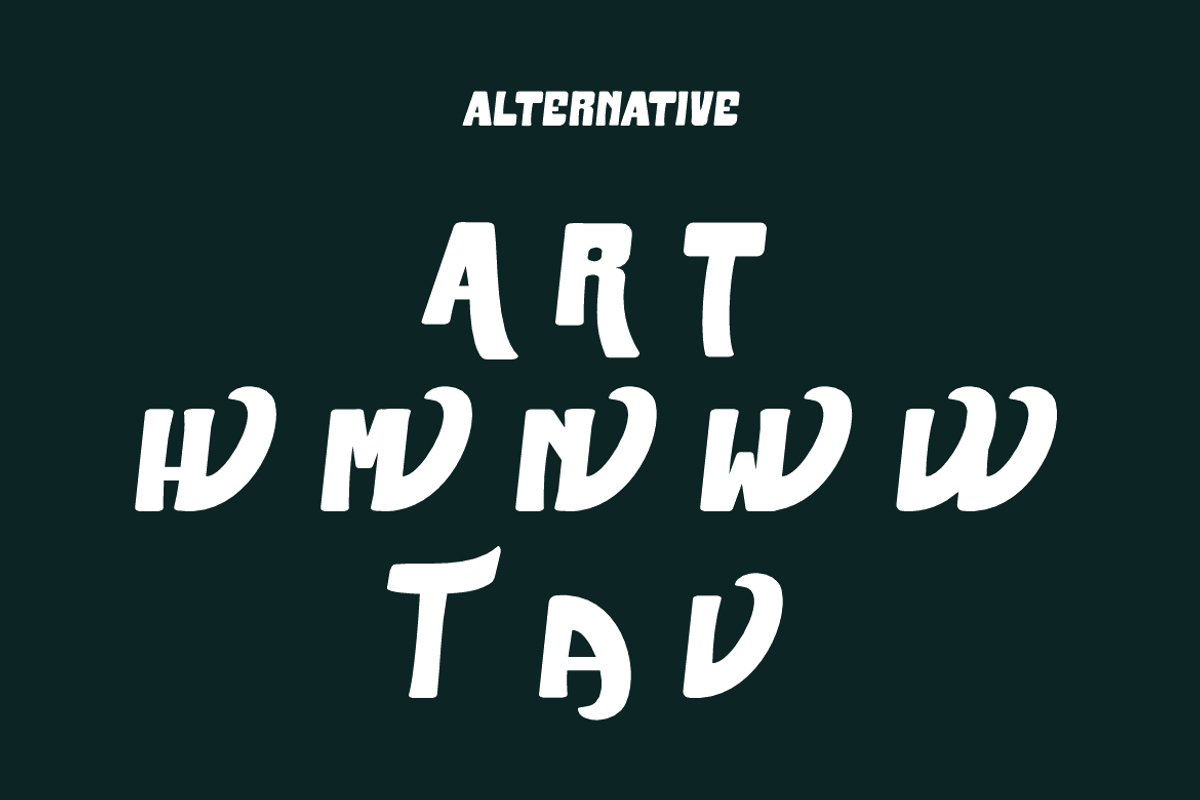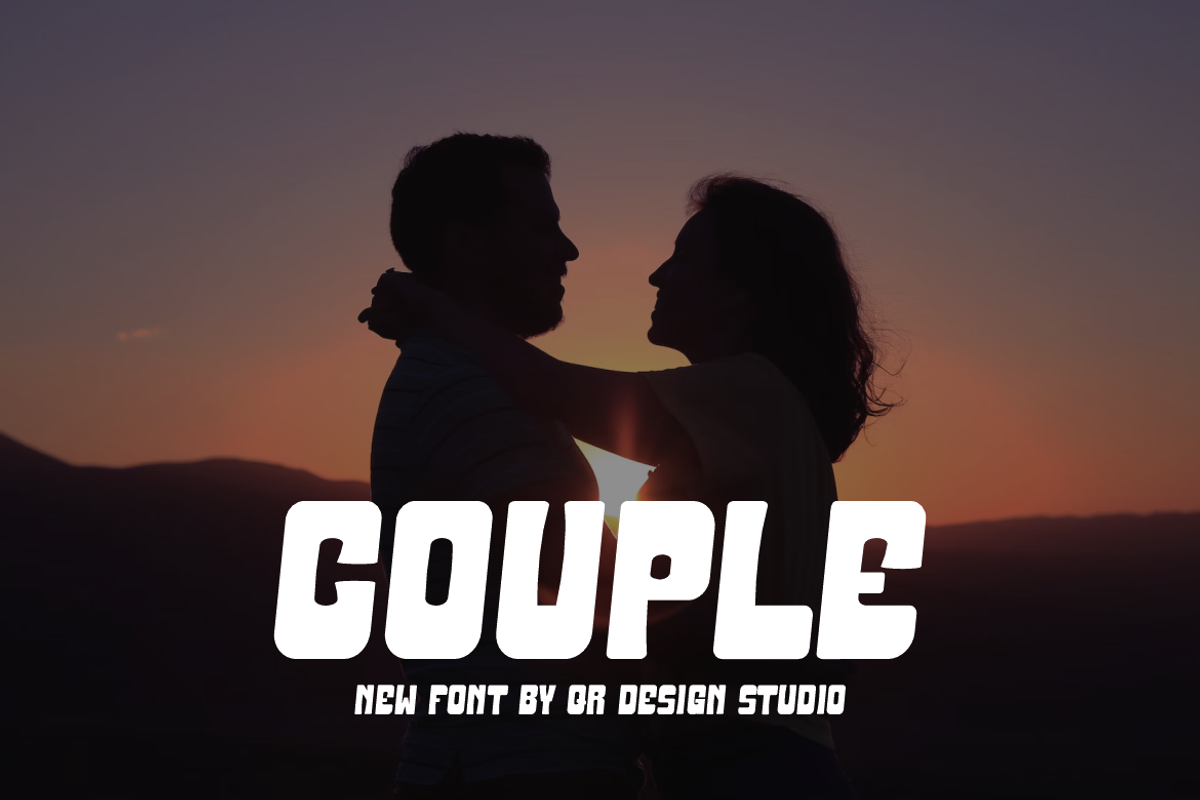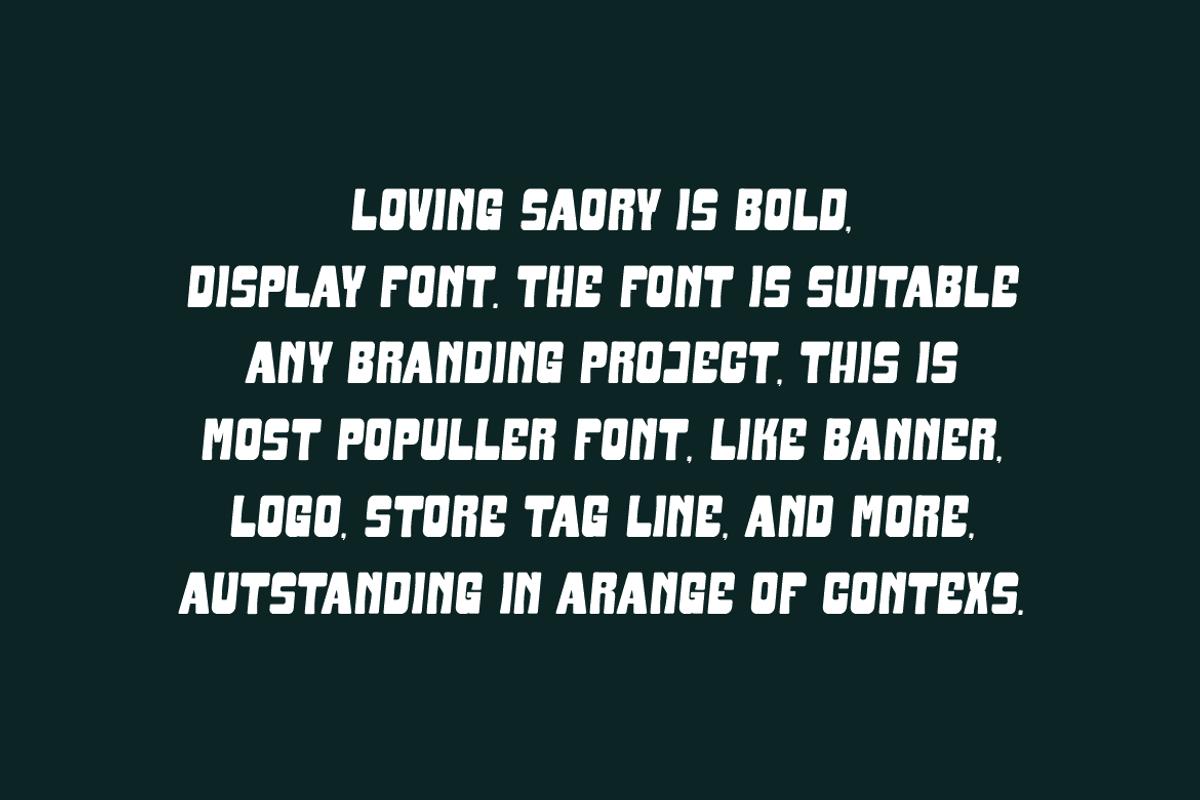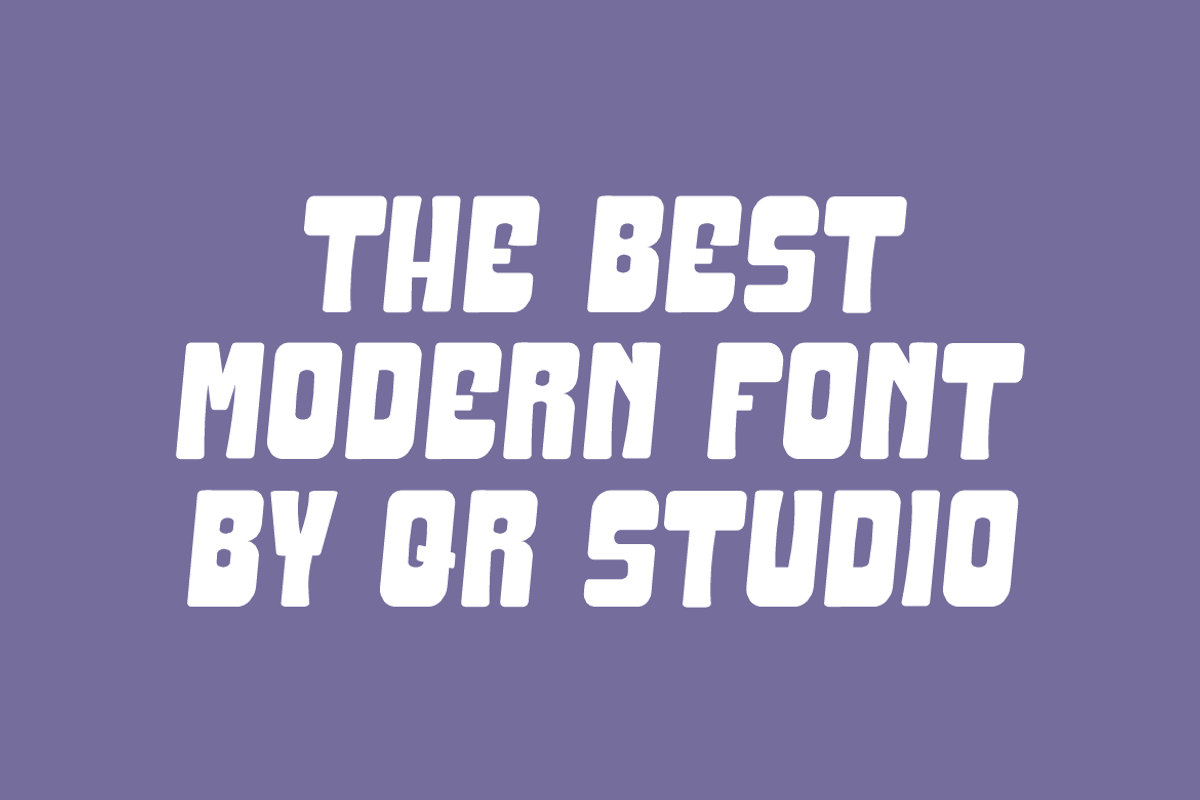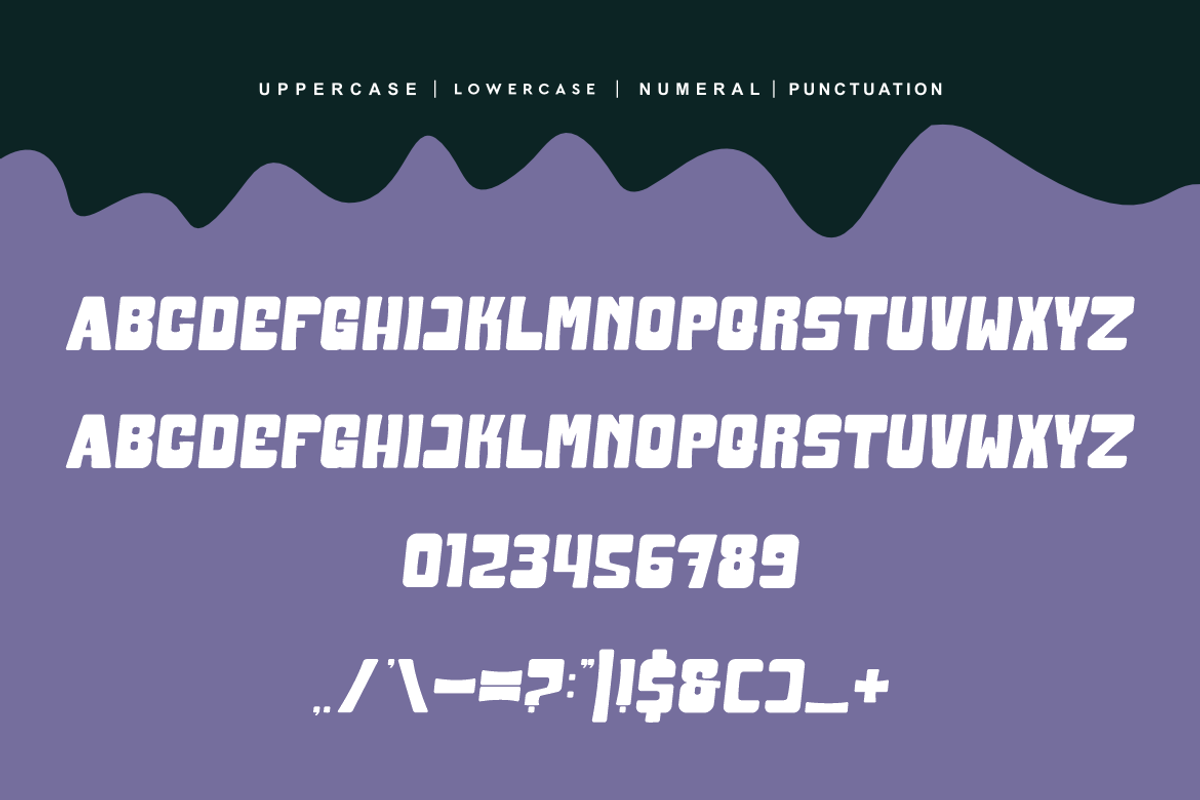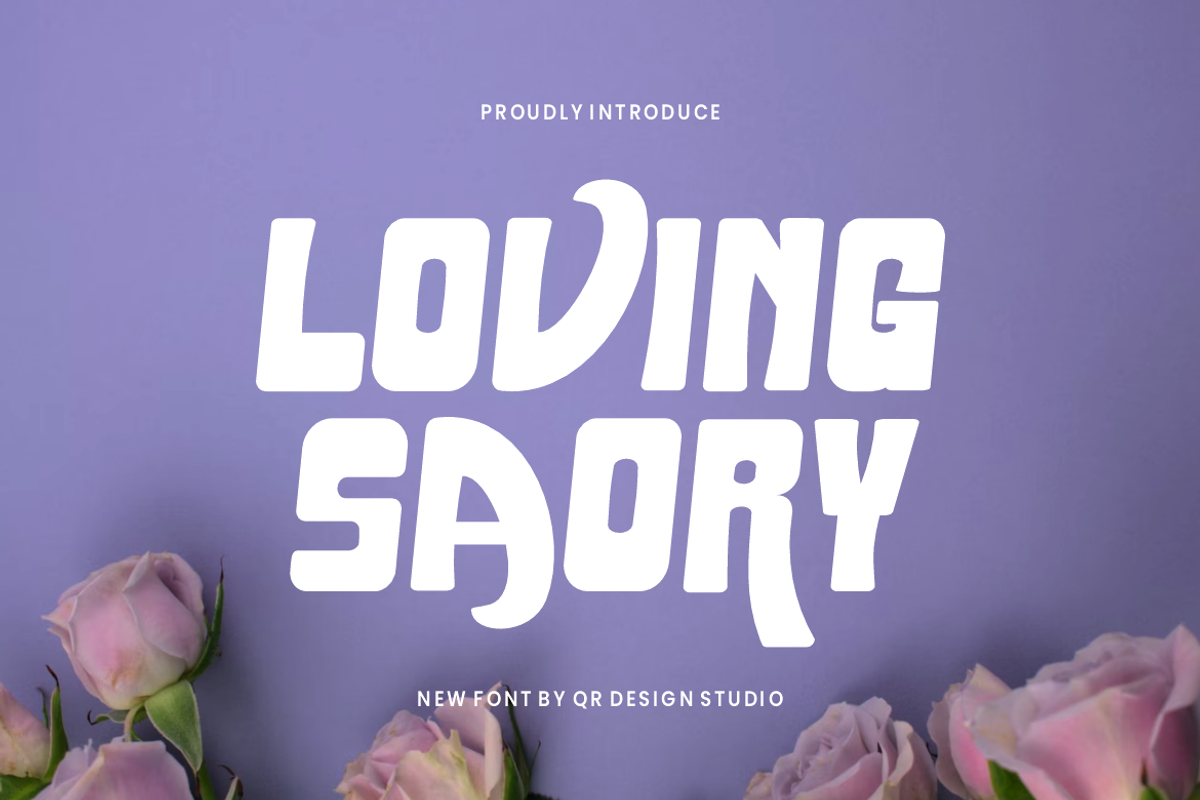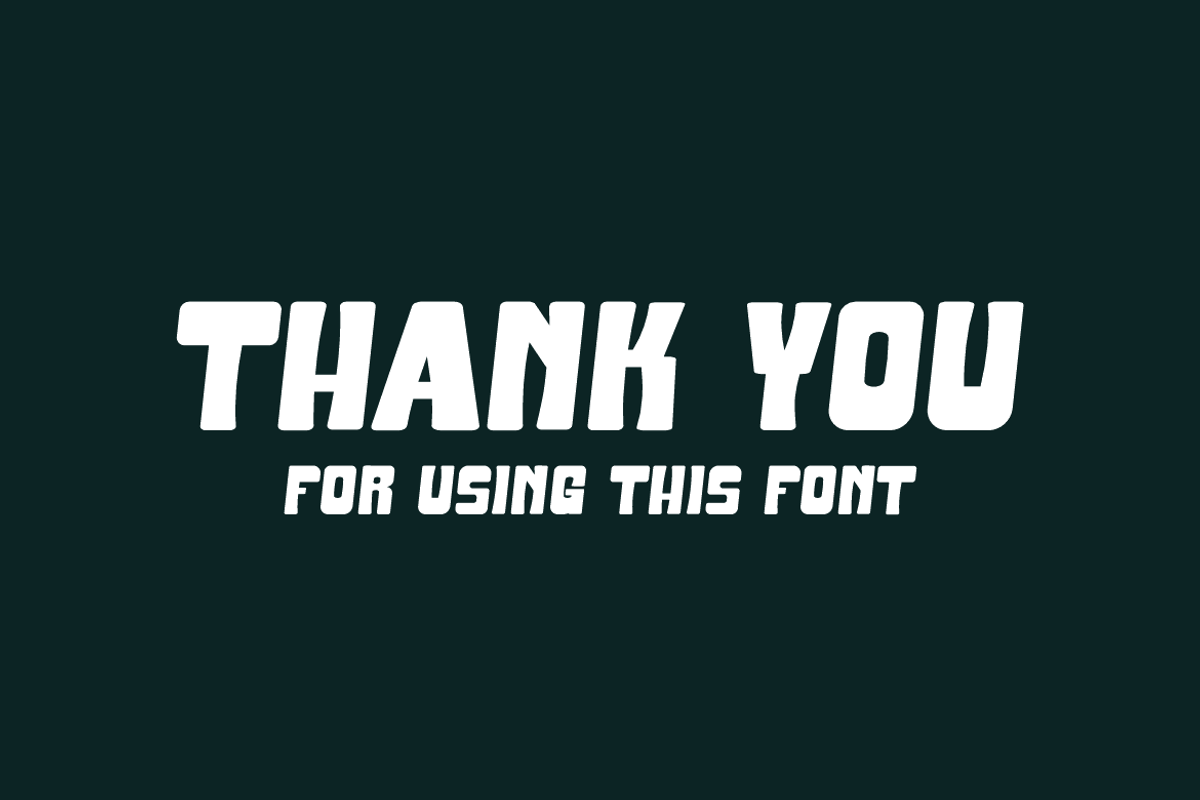
Loving Saory
Loving Saory Font is a bold and authentic display font. The font is suitable for any branding project like poster, logo, sport, and many more. Outstanding in a wide range of contexts.